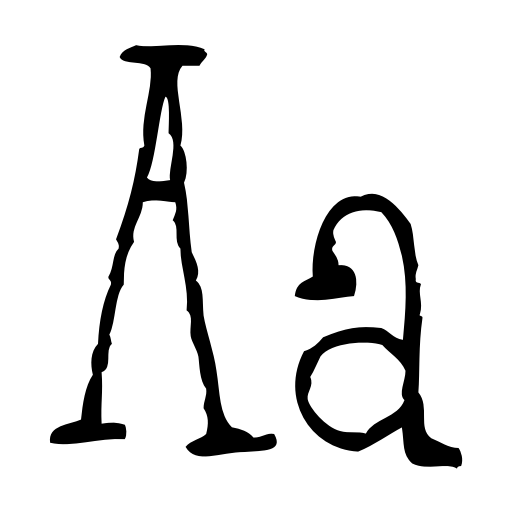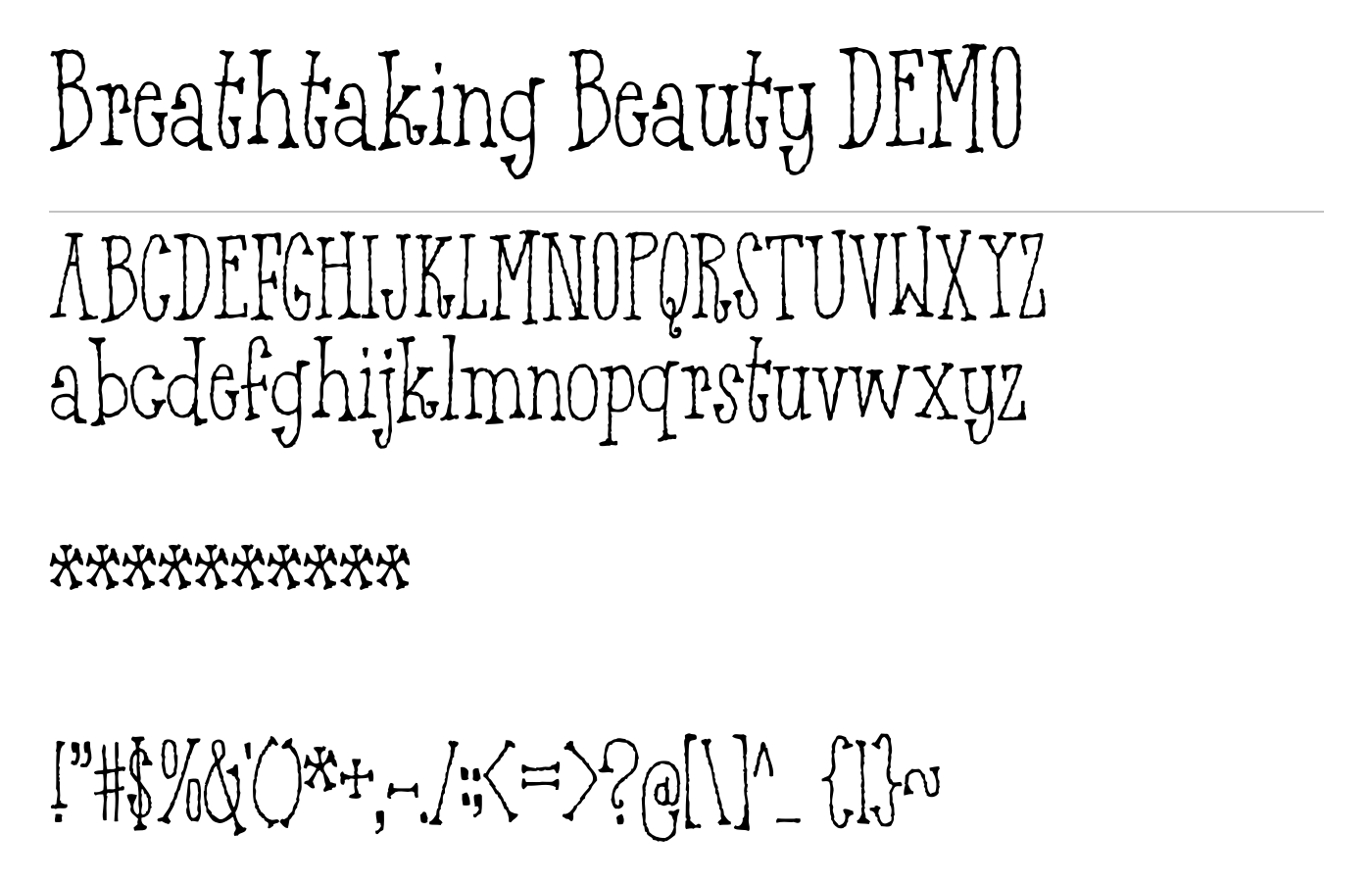
Breathtaking Beauty DEMO is a narrow, playful serif font with quirky, hand-drawn character shapes that give it a whimsical and artistic feel. Its irregular strokes and delicate serifs add a vintage, slightly eerie charm, making it perfect for creative projects, unique headlines, and designs that want to stand out with personality. This font works well for posters, book covers, and any visual content seeking a distinctive, expressive touch.
Breathtaking Beauty DEMO Font
About Breathtaking Beauty DEMO Font